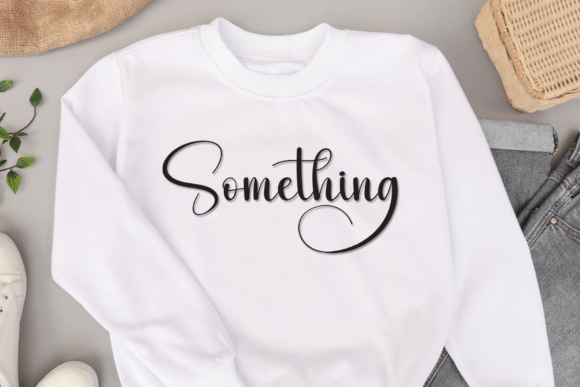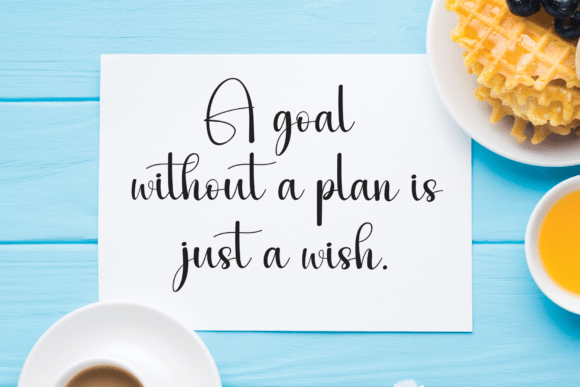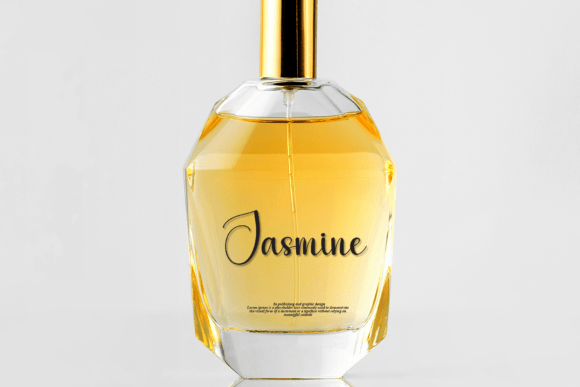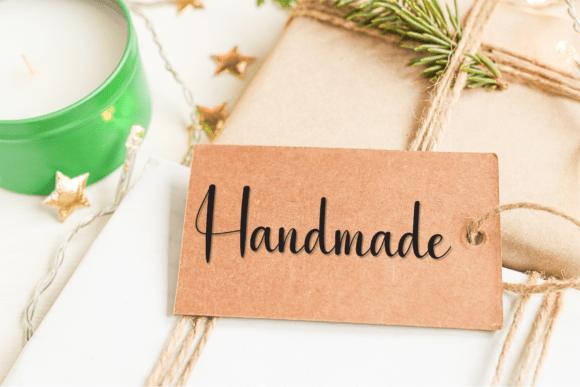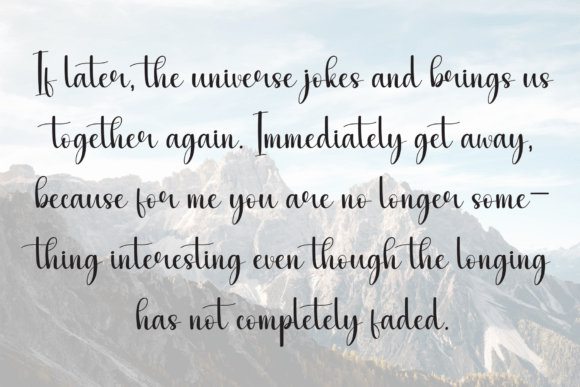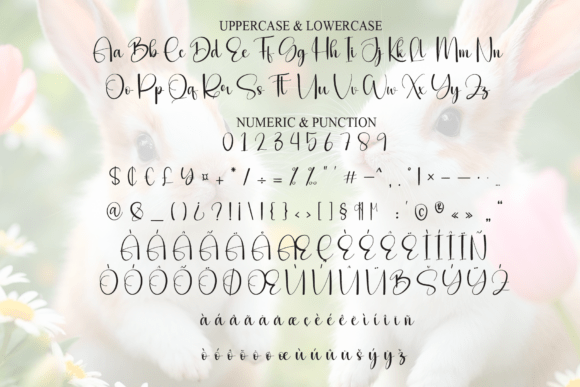
Bunnythick Font: Elevate Your Designs with Fresh Elegance and Delicate Charm
In the world of typography, few fonts manage to capture the essence of spring and renewal as beautifully as Bunnythick. This stylish handwritten script font is designed to bring a touch of fresh elegance and delicate charm to any design project. With its flowing strokes and graceful curves, Bunnythick is perfect for creating stunning invitations, branding materials, and seasonal designs that exude warmth and sophistication.
The Characteristics of Bunnythick Font
Bunnythick is more than just a font; it’s an experience. Its unique blend of elegance and playfulness makes it an excellent choice for designers looking to add a personal touch to their work. Here are some of the key characteristics that make Bunnythick stand out:
- Flowing Strokes: Bunnythick’s strokes are smooth and flowing, giving it a natural and effortless look that is perfect for creating beautiful handwritten script designs.
- Graceful Curves: The font’s curves are delicate and refined, adding a touch of sophistication and elegance to any design.
- Fresh and Delicate: Bunnythick radiates a sense of freshness and delicacy, making it ideal for designs that require a light and airy feel.
Uses of Bunnythick Font
Bunnythick’s versatility makes it suitable for a wide range of design applications. Here are some of the ways you can use this beautiful font to elevate your designs:
- Invitations: Whether you’re designing wedding invitations, birthday party invites, or baby shower announcements, Bunnythick is the perfect choice for creating elegant and sophisticated designs.
- Branding: Bunnythick can add a personal touch to your brand’s identity, making it more relatable and engaging to your target audience.
- Seasonal Designs: The font’s fresh and delicate feel makes it ideal for creating seasonal designs, such as Easter or spring-themed graphics, that require a light and airy aesthetic.
Why Choose Bunnythick Font?
With so many fonts available, why should you choose Bunnythick for your design projects? Here are some compelling reasons to consider:
- Unique Style: Bunnythick’s unique blend of elegance and playfulness sets it apart from other fonts, making it an excellent choice for designers looking to create distinctive designs.
- Ease of Use: The font is easy to read and works well in a variety of sizes, making it suitable for both print and digital designs.
- Emotional Connection: Bunnythick’s delicate charm and fresh elegance can help create an emotional connection with your audience, making your designs more engaging and memorable.
Tips for Using Bunnythick Font Effectively
To get the most out of Bunnythick, here are some tips to keep in mind:
- Pair it with Other Fonts: Bunnythick works well when paired with other fonts, especially sans-serif fonts, to create a beautiful contrast and add visual interest to your designs.
- Experiment with Colors: The font looks great in a variety of colors, so don’t be afraid to experiment and find the perfect color scheme for your design.
- Use it Sparingly: While Bunnythick is a beautiful font, it can be overwhelming if used excessively. Use it sparingly to create a focal point in your design and draw attention to important elements.
Bunnythick font is a stylish and elegant handwritten script font that can add a touch of fresh elegance and delicate charm to any design project. Its flowing strokes, graceful curves, and unique blend of elegance and playfulness make it perfect for creating stunning invitations, branding materials, and seasonal designs. With its ease of use, emotional connection, and versatility, Bunnythick is an excellent choice for designers looking to elevate their designs and create a lasting impression.